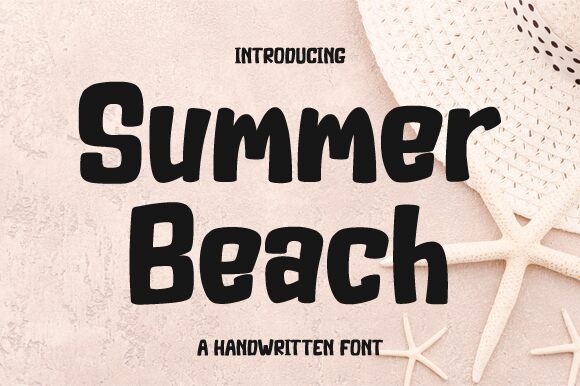
Summer Beach
Summer Beach font by Nirmala Creative is a free bold cartoon display font that brings sun‑soaked energy to big, friendly headlines. Its chunky strokes, rounded corners, and lightly wobbly rhythm feel like letters molded from wet sand-playful, warm, and easy to read at a glance. The generous counters and soft silhouettes keep it loud without shouting, making color and texture pop.
Using Summer Beach, your designs shine on beach festival posters, kids’ party invites, ice‑cream packaging, travel postcards, surfing school logos, summer camp tees, and YouTube thumbnails. This free font loves oversized type and bright palettes; give it a touch of tracking for breezy spacing. For body copy, pair it with a simple, clean sans to keep the spotlight on those squishy, tide‑smoothed forms.